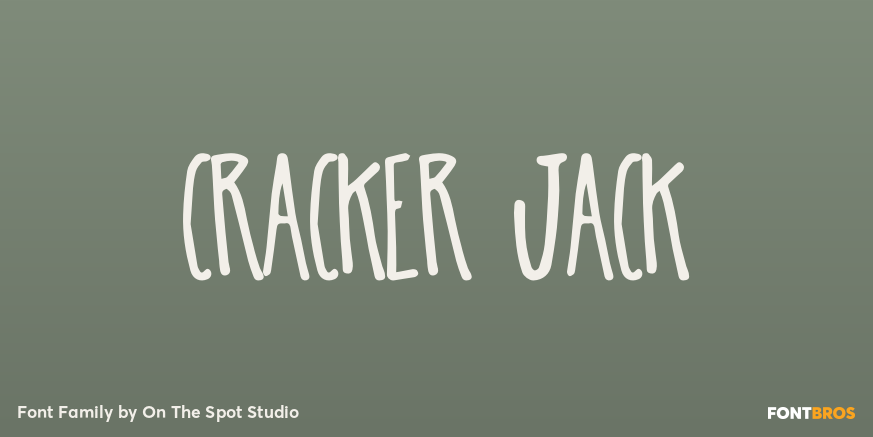
HomeFont BrosHandwrittenCracker Jack HandwrittenScripts: Casual Cracker Jack FacebookXPinterestWhatsApp 1 of 1 About Cracker Jack tall and skinny, CrackerJack is a super fun font to use for journaling, your website, your logo, your card designs, etc!  DOWNLOAD ON FONT BROSThis font is sold and delivered by Font Bros. Font Canyon may earn a commission if you buy through this link. People also explored Stargazer Font Takegon Font Swedish Creme Font Housew Mouse Font Floresta Font Maqren 489 Font Fairy Tale Doodle Font Popcorn Garden Duo Font Destain Font 436 0 TagsCracker Jack Font Previous articleParcheminNext articleScribble Note LEAVE A REPLY Cancel reply Comment: Please enter your comment! Name:* Please enter your name here Email:* You have entered an incorrect email address! Please enter your email address here Website: Save my name, email, and website in this browser for the next time I comment. Personal Use Free Better Together Duo Personal Use Free Read more about this font Peachy Rose Personal Use Free Read more about this font Monogram Calligraphy Personal Use Free Read more about this font Braindly Personal Use Free Read more about this font BLOG 5 Fonts That Will Dominate Design Trends in 2026 5 Fonts for 2026 That Will Dominate Design Trends Typography plays a critical role in visual communication, and as we look ahead to 2026, it’s... How to Install and Use Fonts on Windows, macOS, and Web Projects Fonts That Capture the Spirit of New York City Exploring Font Trends